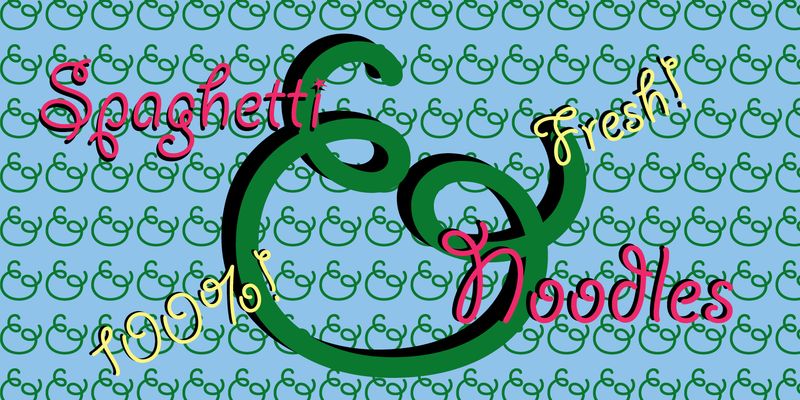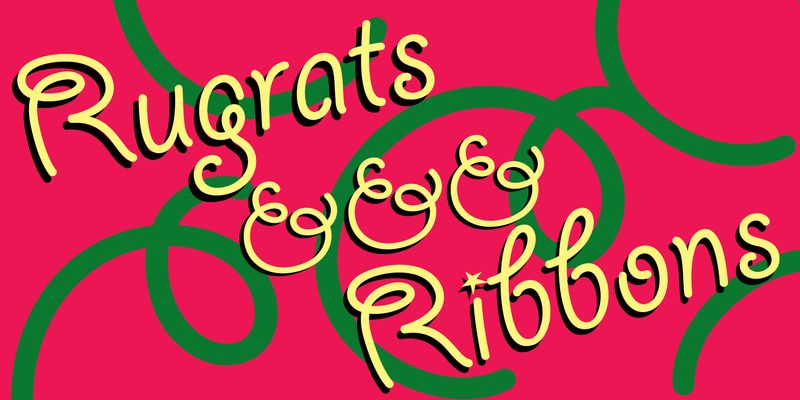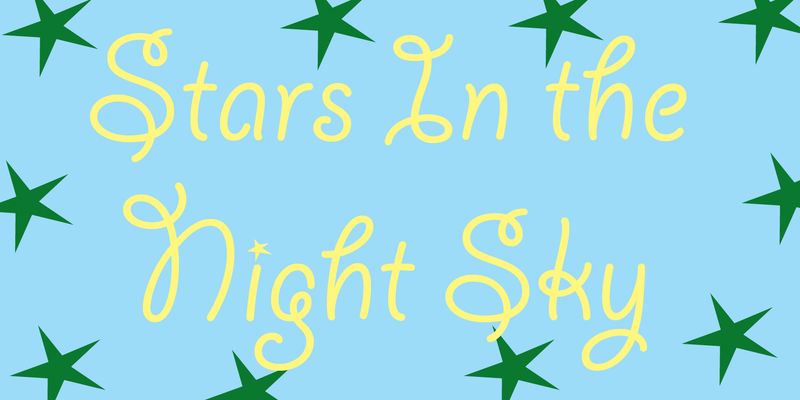
Laurie Szujewska, Adobe art director, used the rope letters decorating cattle brands and cowboy blankets to create Giddyup, a typeface with a twist. The idea was to make each letter with one line that overlaps like a rope, rather than two strokes joined together, Laurie explains. She also corralled a few varmints into the Giddyup Thangs ornament set.